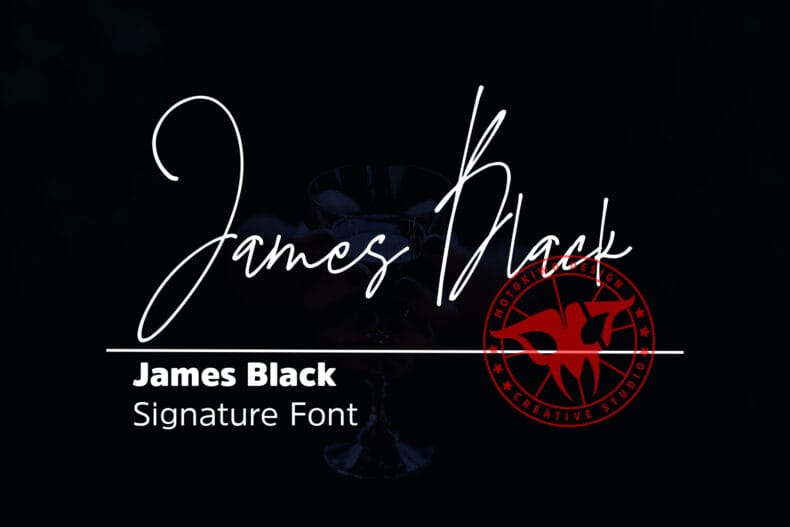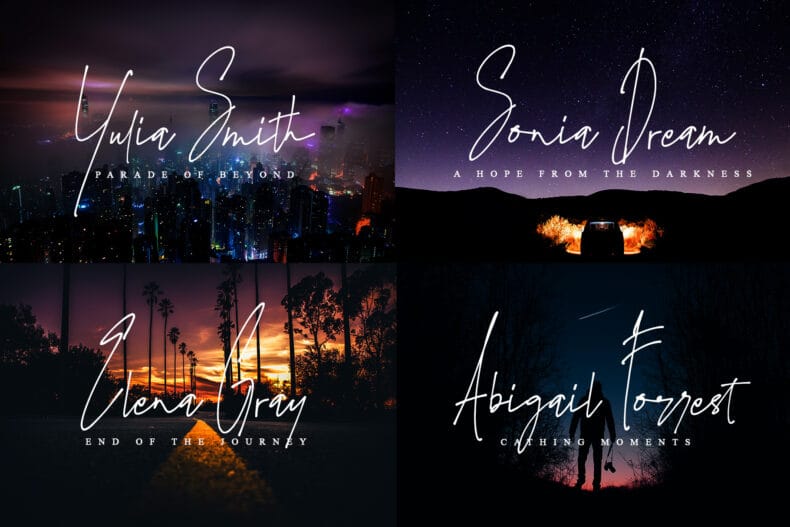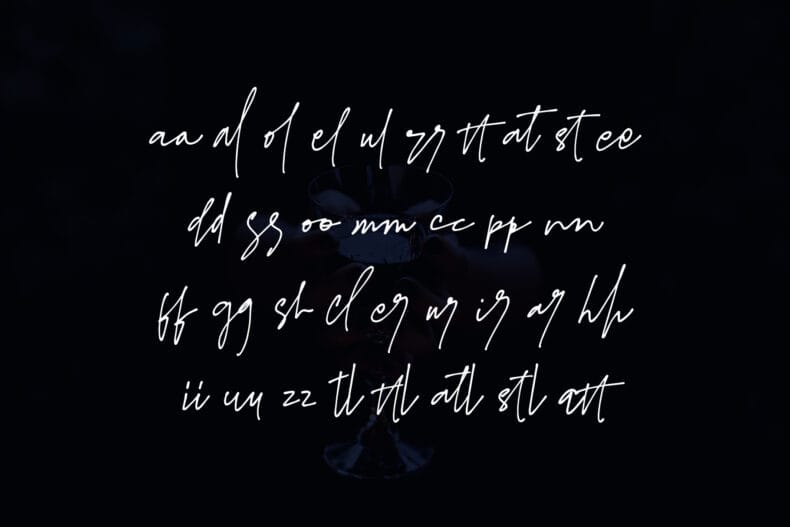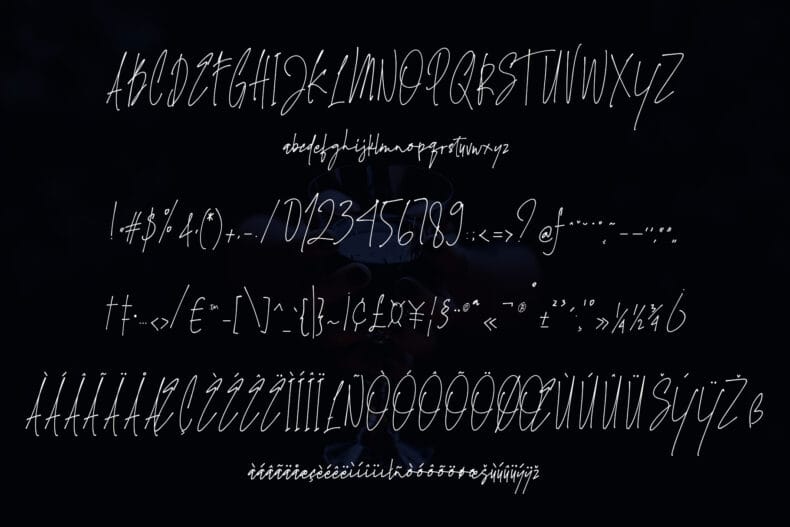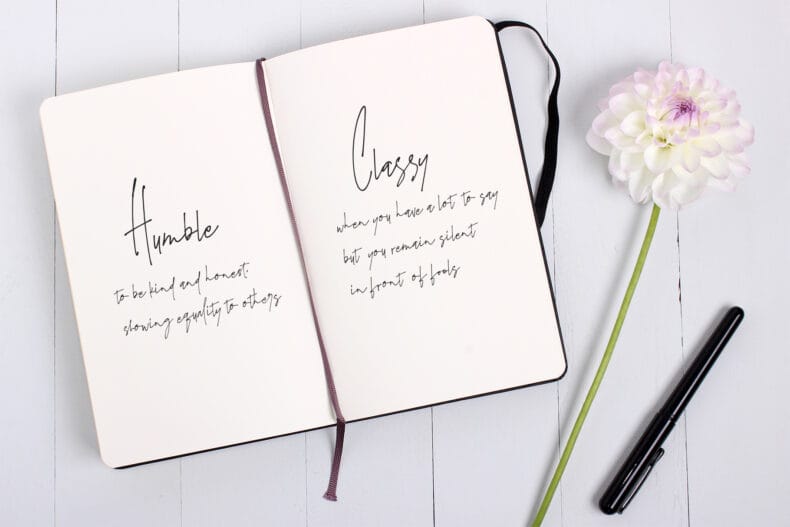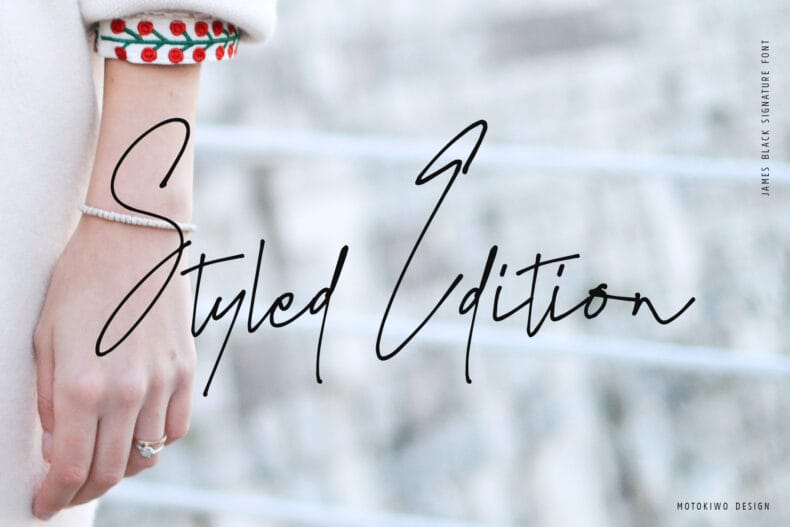
James Black Signature Font
James Black, a signature milli pen font with classy handwriting style.
This is a perfect font for business, for your personal feels, for everything about you smart people! You will get a casual handwritten font with some ligatures that will give you more taste of high class personality.